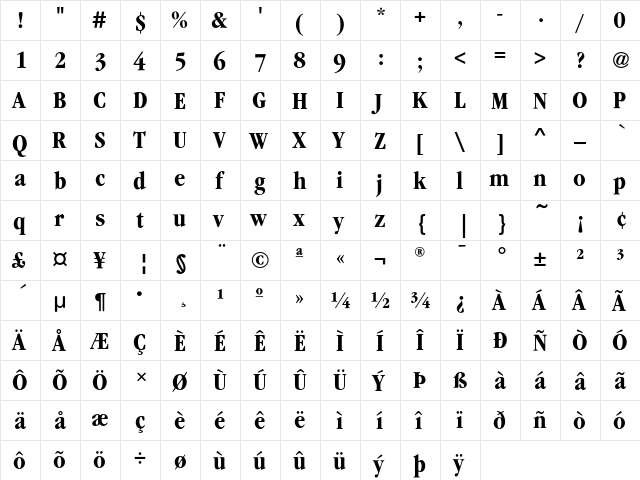
GaramondEF BoldCondens
Design Context for GaramondEF Typeface
GaramondEF is a composed and adaptable typeface that performs quietly and consistently across a wide range of design contexts. The heavy weight commands attention and anchors typographic hierarchies. Its narrow stance lets it pack a punch even in space-constrained designs.